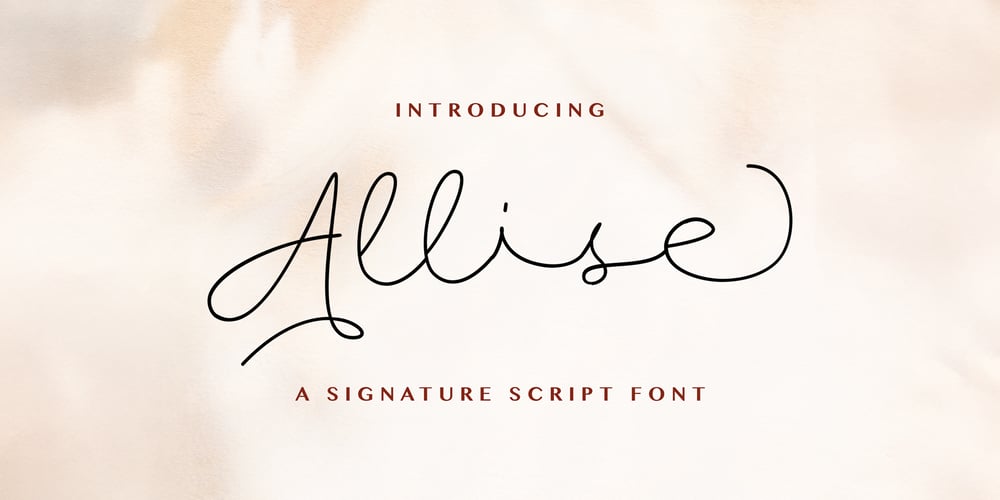
Allise Font Family was designed by Virgiawan Listanto and published by Stringlabs Creative Studio. Allise contains 1 styles and family package options. Allise is a sophisticated and stylish signature script font that captures the essence of elegant, handwritten lettering. With its smooth, flowing strokes and graceful curves, this font evokes a sense of personal charm and luxury, making it perfect for creating high-end branding.